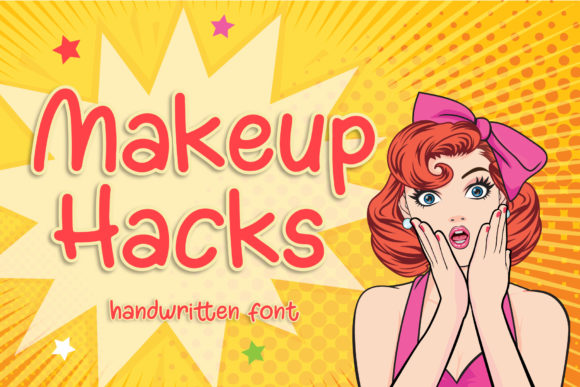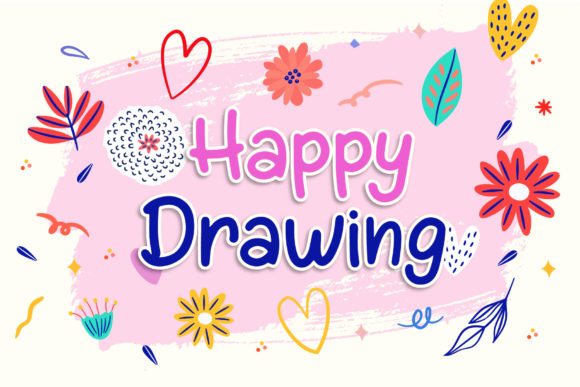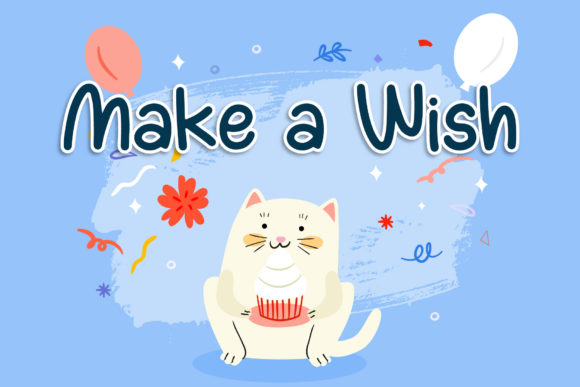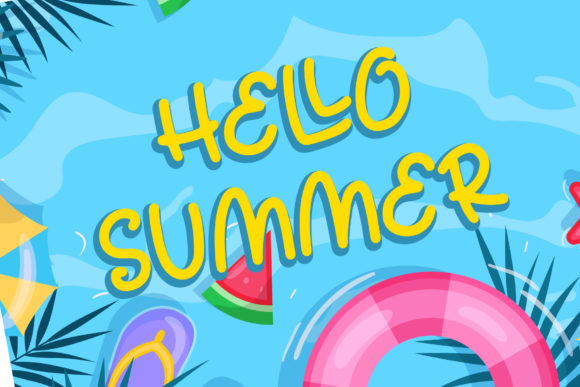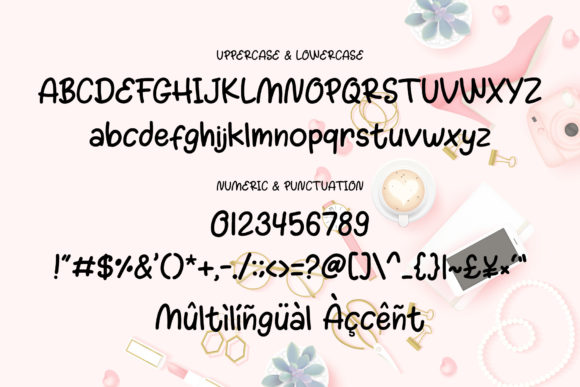
Makeup Hacks Font
About Makeup Hacks Font
Makeup Hacks is a font that exudes sweetness and versatility, making it a delightful choice for a wide range of design projects. Its handwritten style enhances your creations, adding a touch of authenticity that captivates the eye.
With its sweet and natural essence, Makeup Hacks brings a sense of playfulness and charm to your designs. Whether you’re working on beauty-related graphics, quotes, greeting cards, logos, business cards, or any other project, this font elevates each creation with its delightful allure.
Makeup Hacks’ handwritten appearance adds a personal and unique touch to your designs, making them feel genuine and special. It’s like a stroke of creativity that infuses your creative ideas with a sense of joy.
Incorporating Makeup Hacks into your designs allows you to explore a wide range of creative possibilities. Its versatility serves as a canvas for your imagination, empowering you to create visually stunning and captivating designs.
Moreover, Makeup Hacks looks stunning in various contexts and themes, making it an excellent choice for a diverse array of projects. From feminine beauty-related designs to cute and fun creations, this font complements your ideas beautifully.
Fall in love with Makeup Hacks’ sweet and versatile style as it transforms your ideas into spectacular designs that resonate with creativity and charm.
In summary, Makeup Hacks is more than just a font; it’s a delightful and versatile companion that enhances your creative ideas. Embrace its uniqueness and notice how it elevates your projects to new levels. With Makeup Hacks, your designs become true expressions of playfulness and authenticity, leaving a lasting impact on all who encounter them. Let Makeup Hacks be the font that adds a touch of magic to your designs, creating a world of endless possibilities and captivating the hearts of your audience.